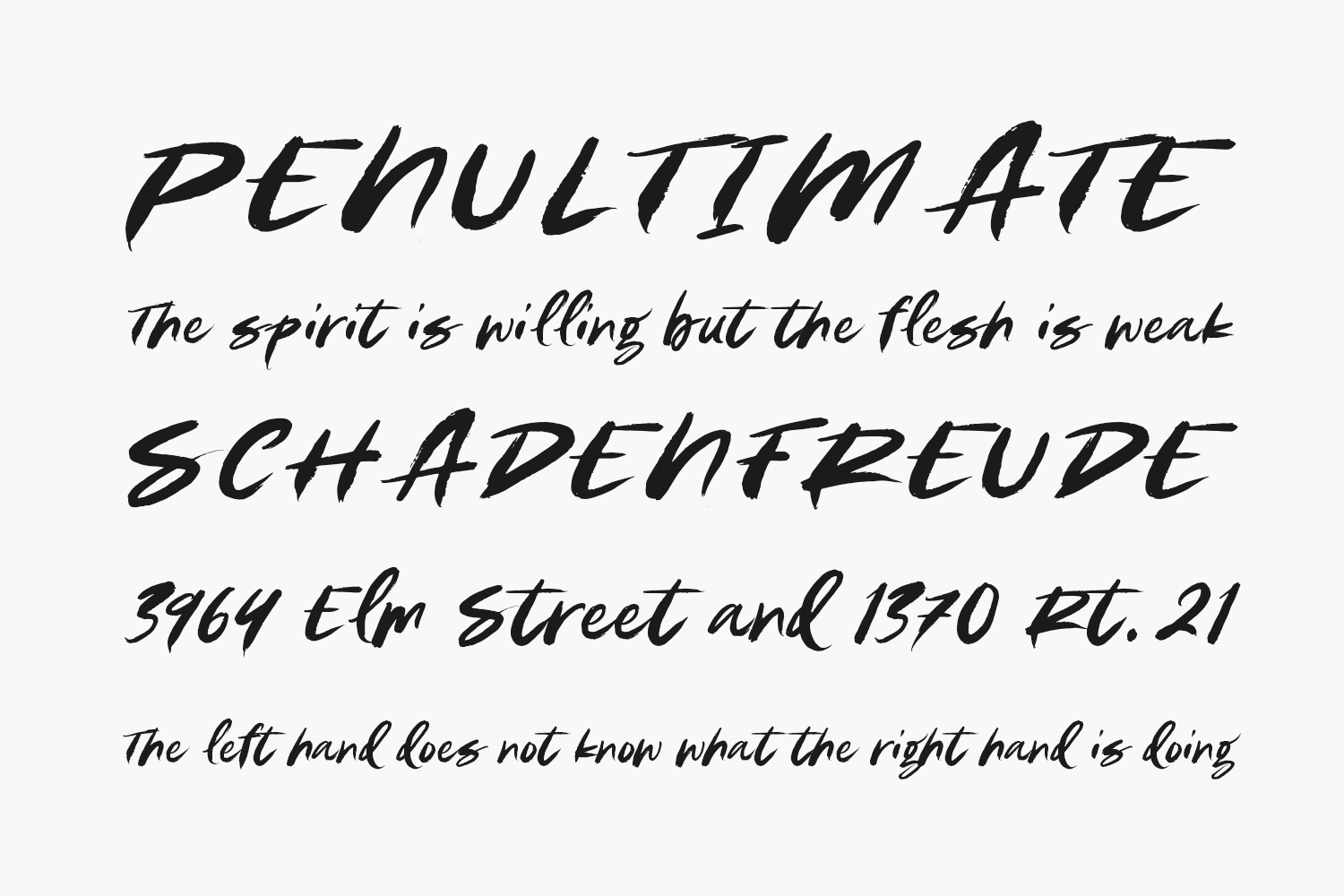
Olive & Vine Free Font is a cool and brushed handwritten font. This font was particularly crafted for those who need an impactful and refreshing look to their designs. Olive & Vine Free Font was designed by Letterhend Studio and is free for personal use only. Please purchase the full version for commercial use.